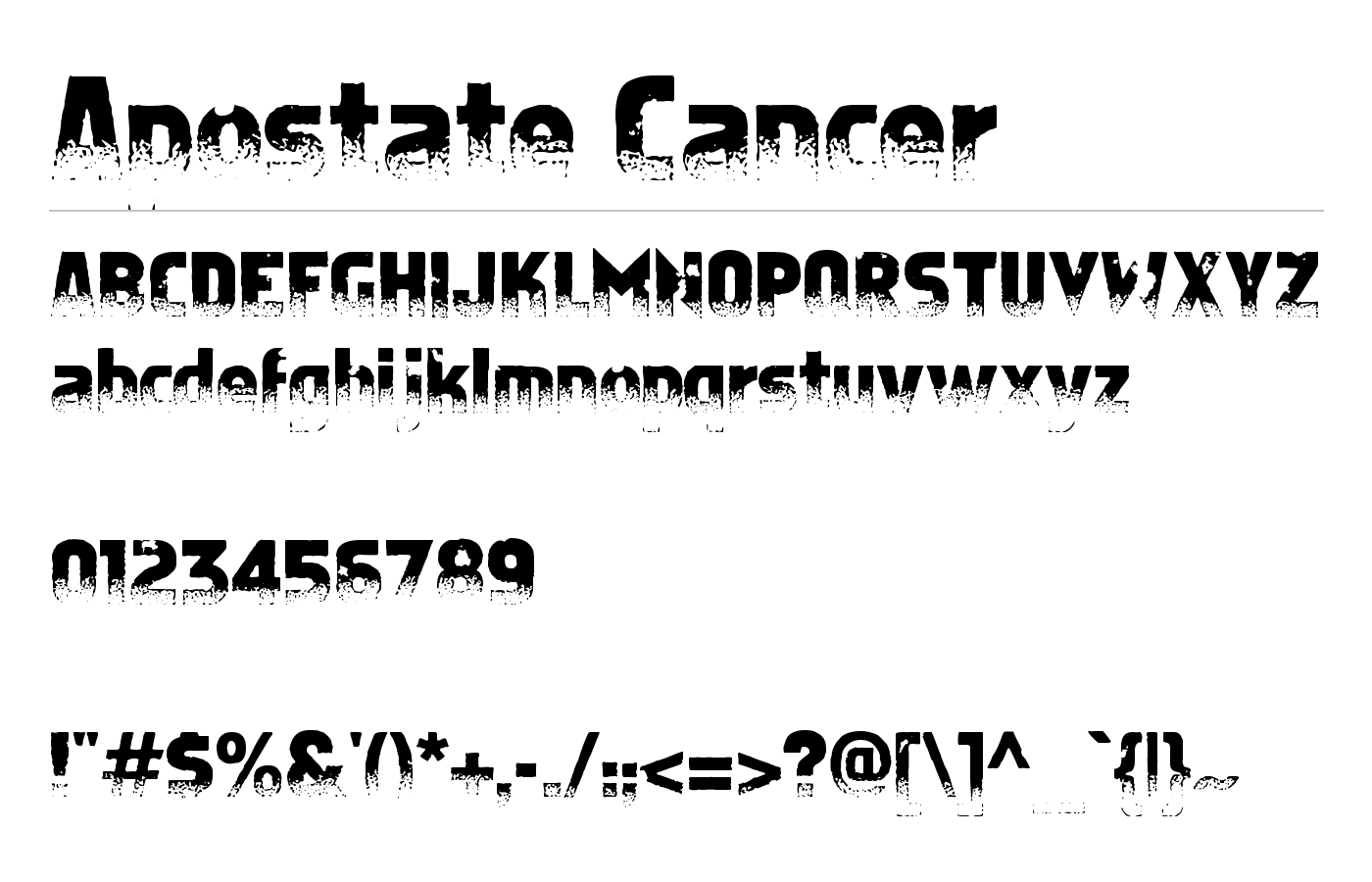
Apostate Cancer is a bold, distressed sans serif font with a gritty, eroded texture that gives it a raw, edgy feel. Its strong, blocky letterforms combined with a fading effect create a sense of decay and rebellion, making it ideal for striking headlines, posters, or branding that needs an urban, grunge, or alternative vibe. This font works best where a powerful, unconventional look is desired to grab attention and convey intensity.
Apostate Cancer Font
About Apostate Cancer Font
| Font family | Apostate Cancer Font |
| Designer | S. John Ross |